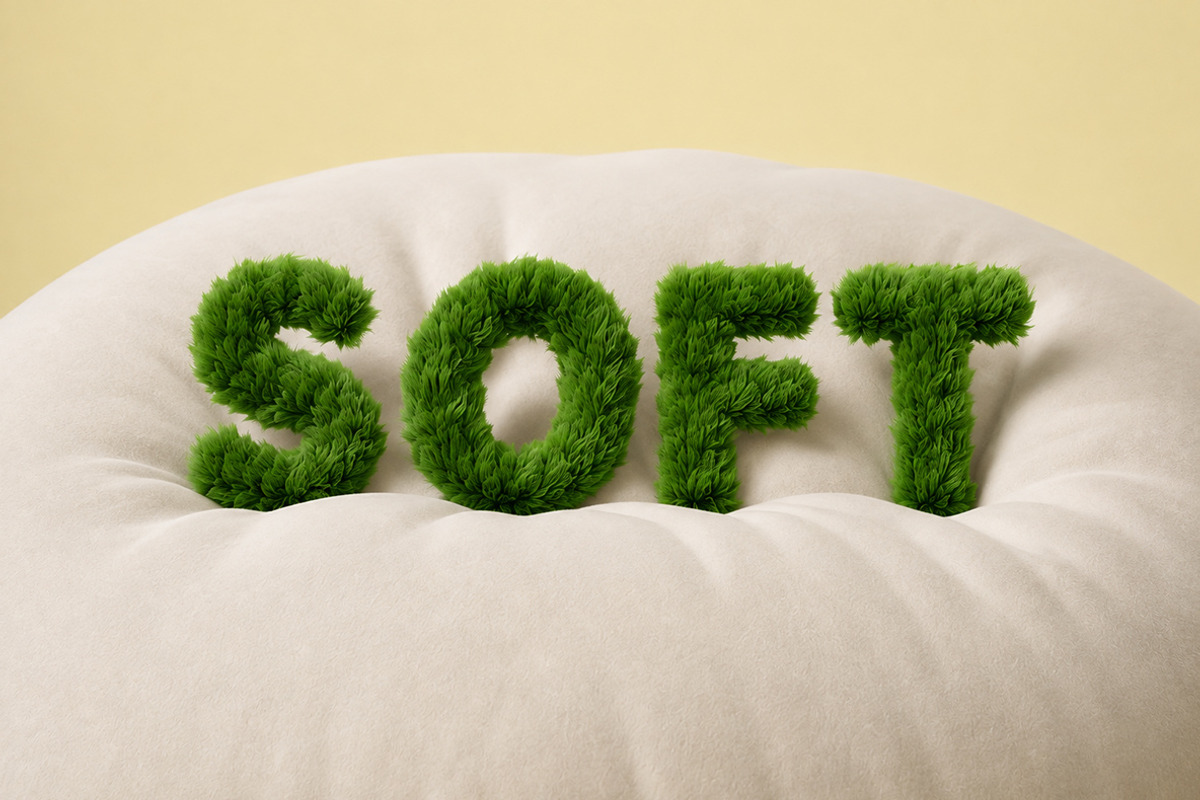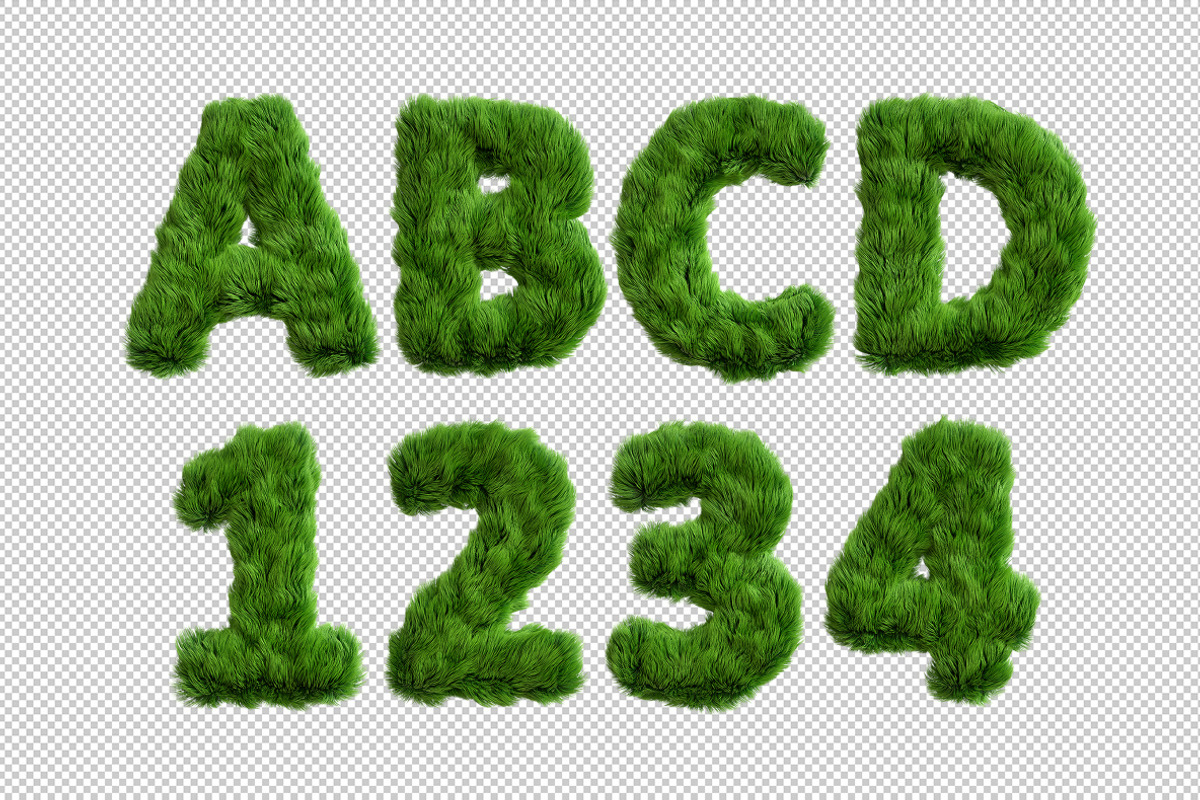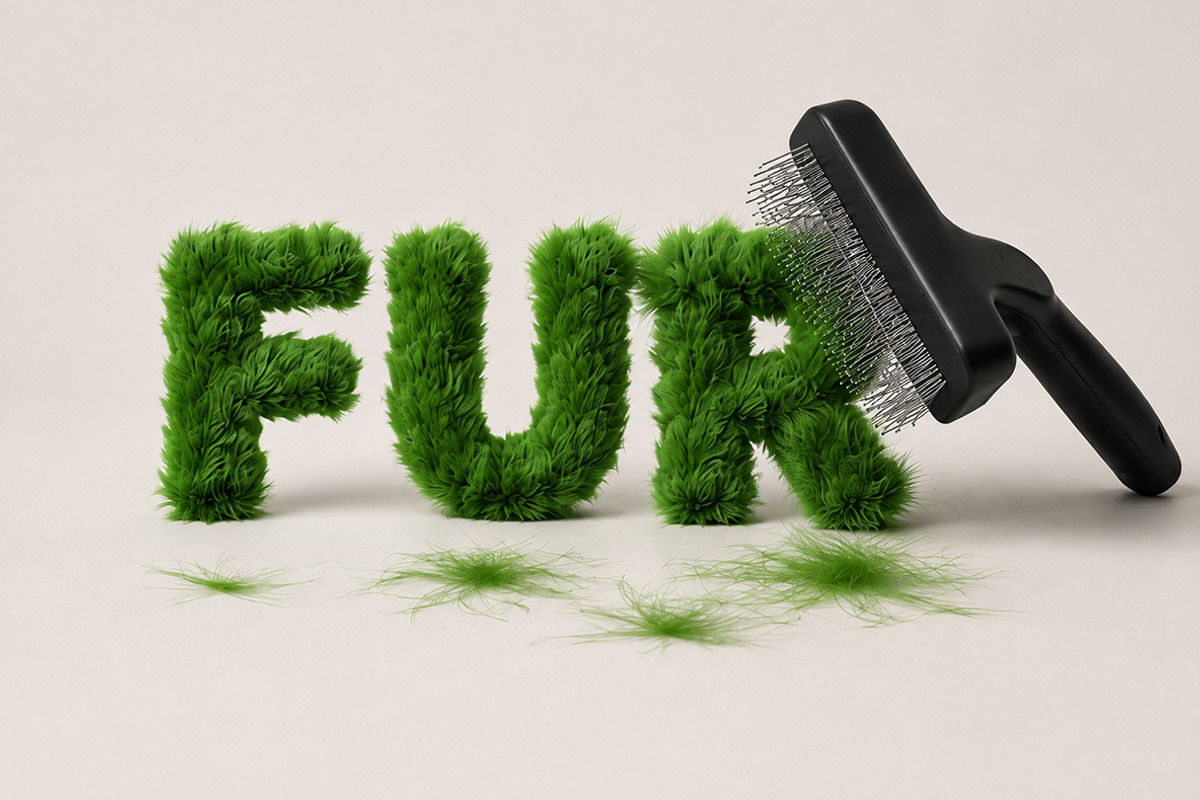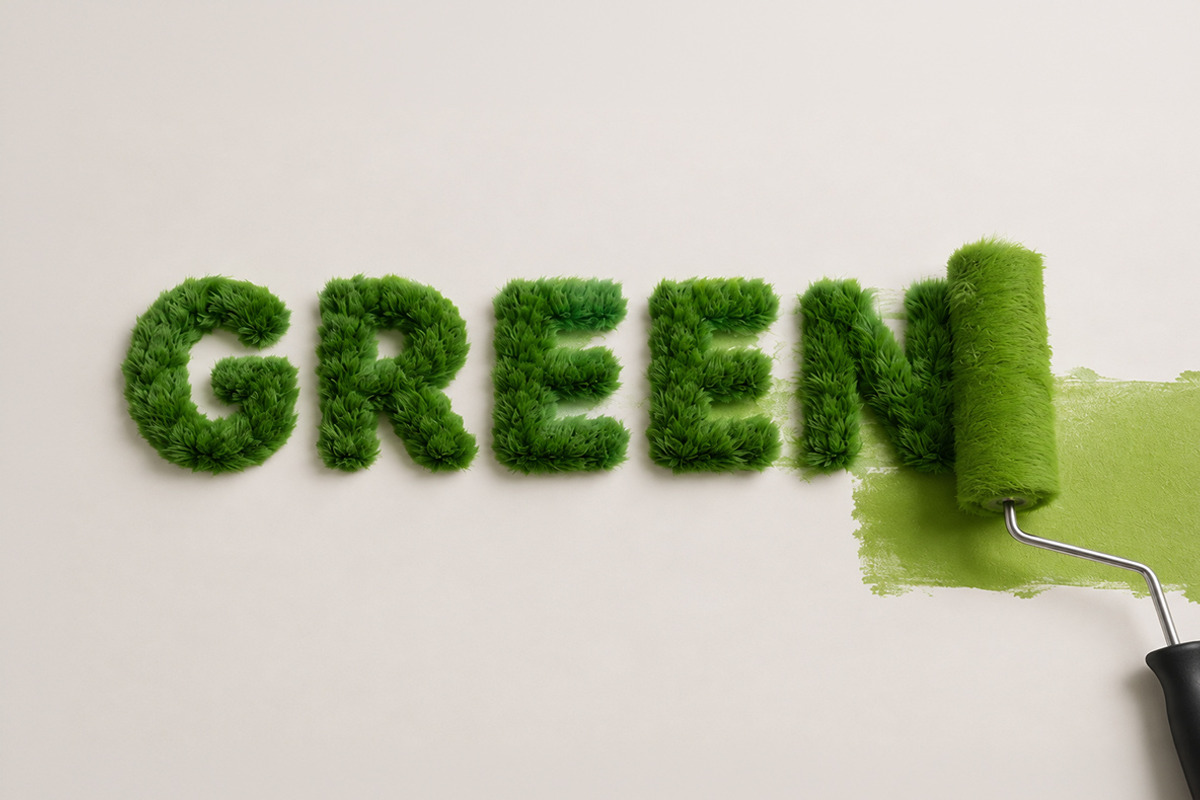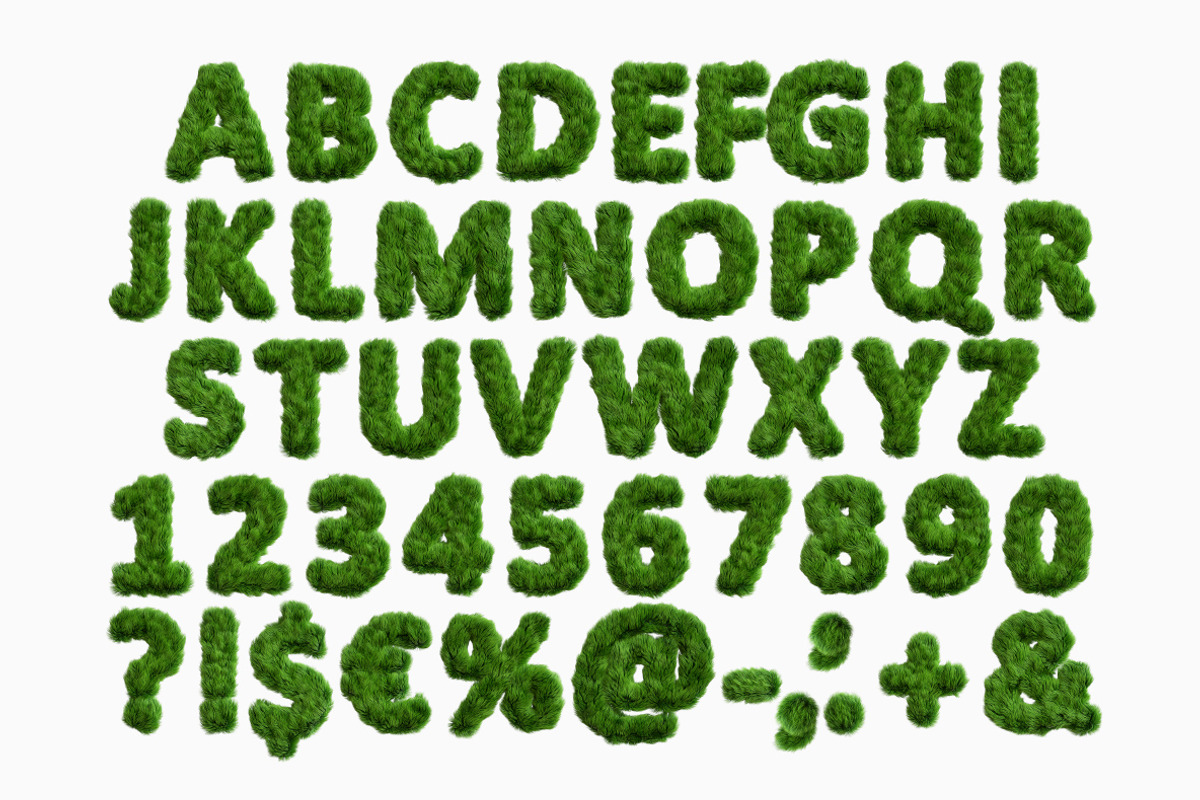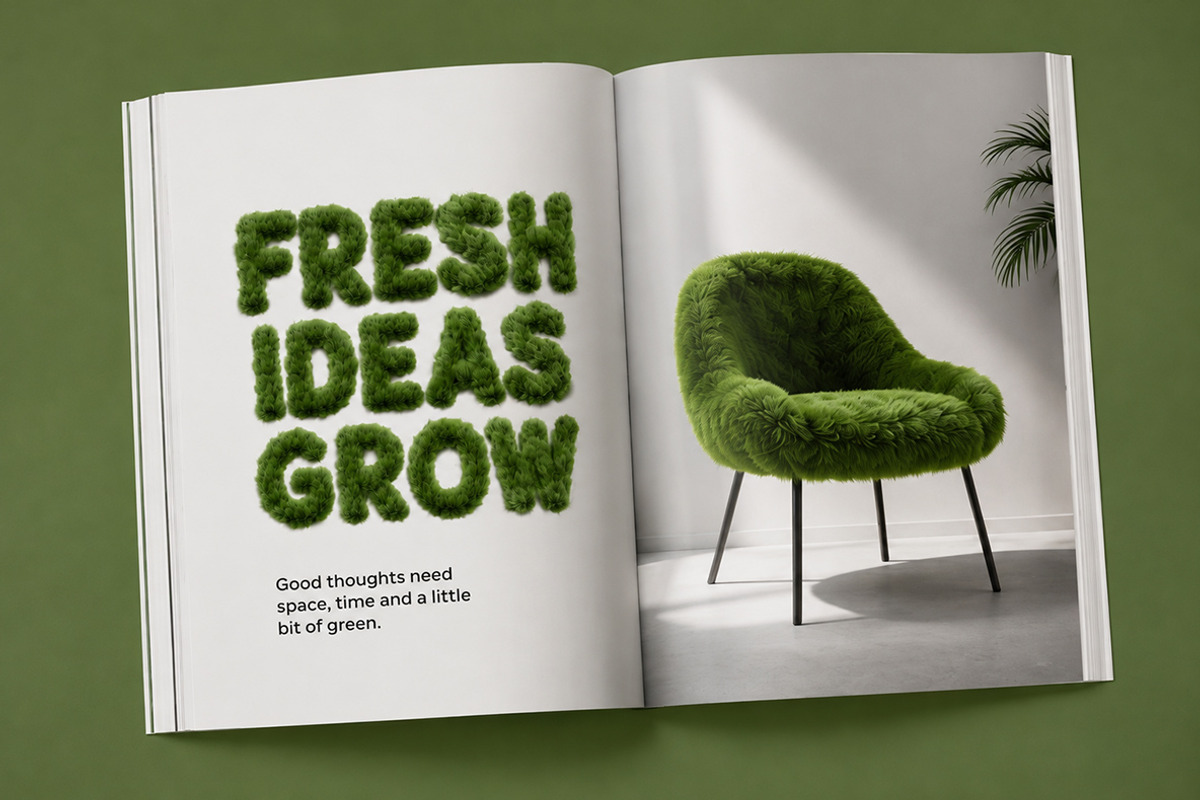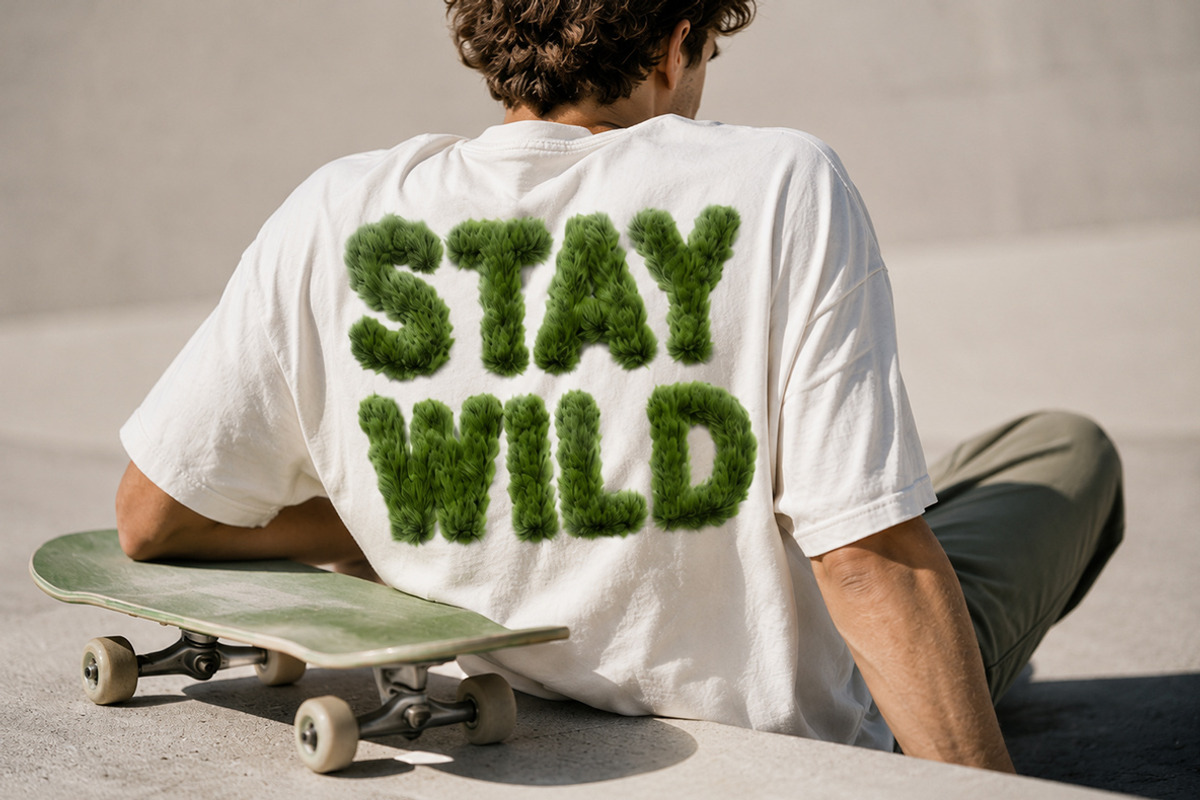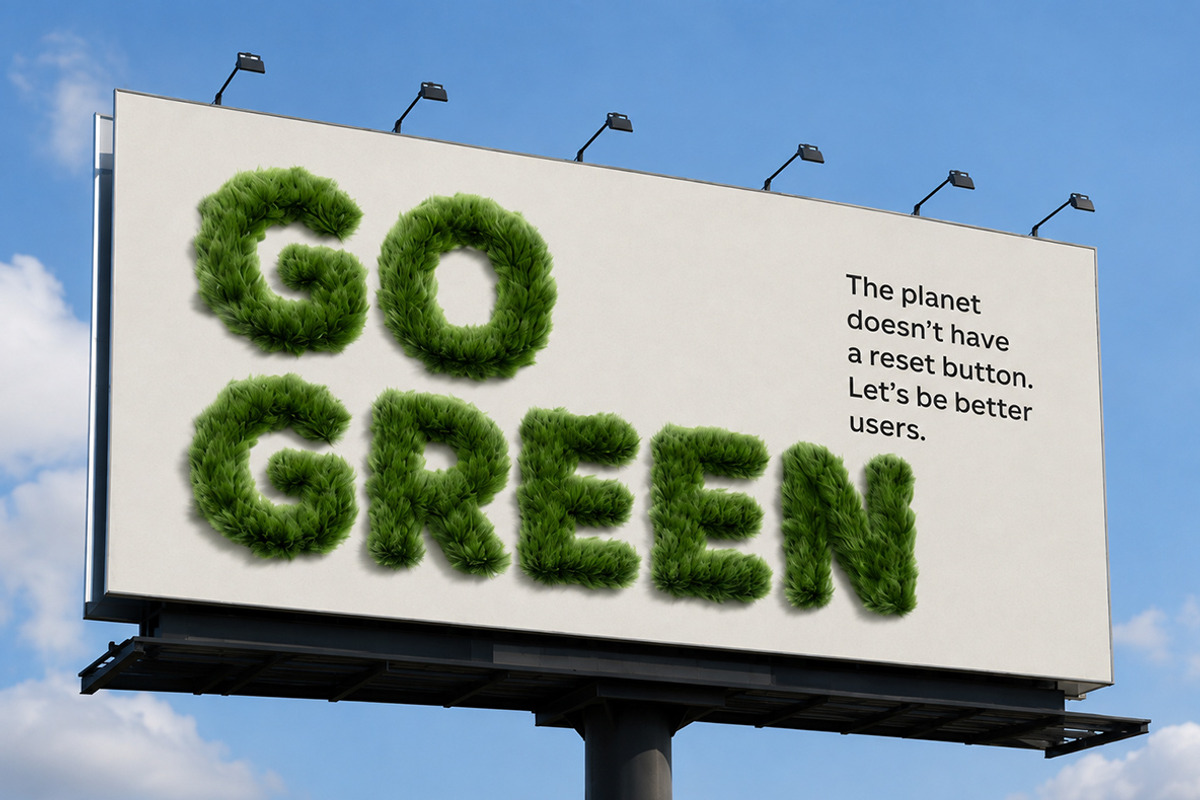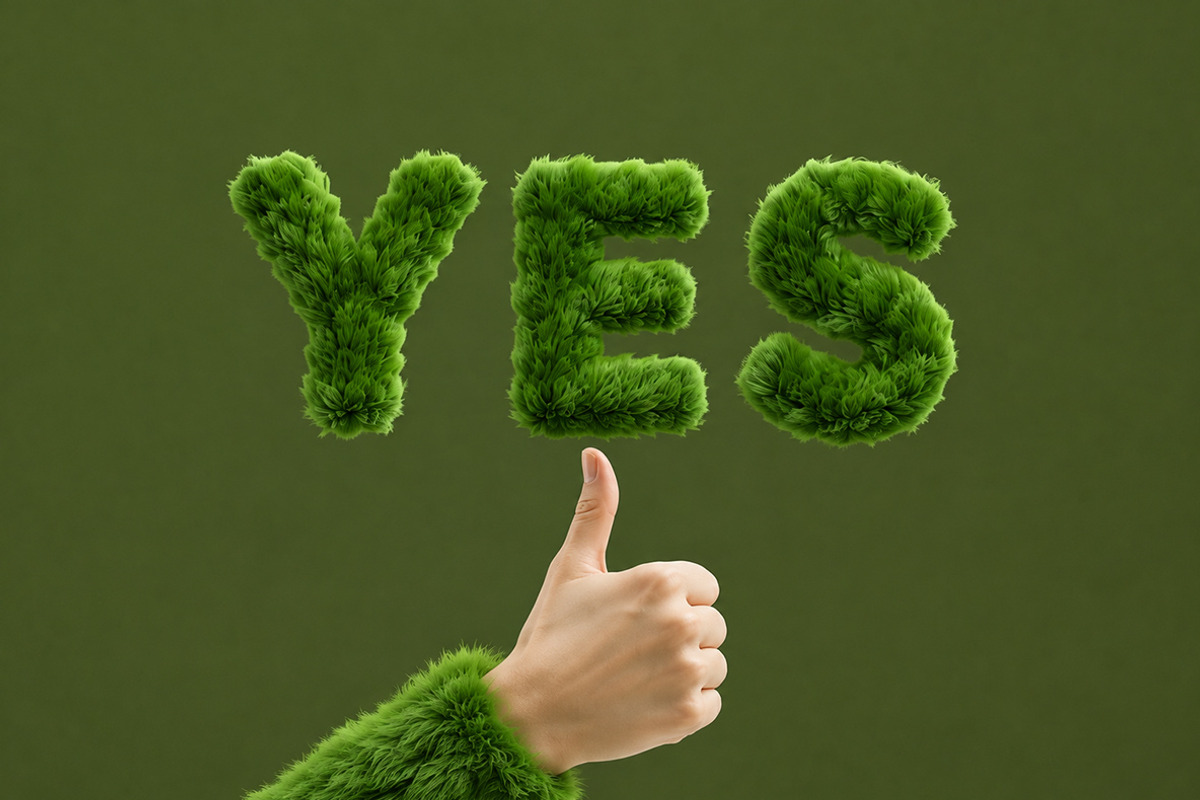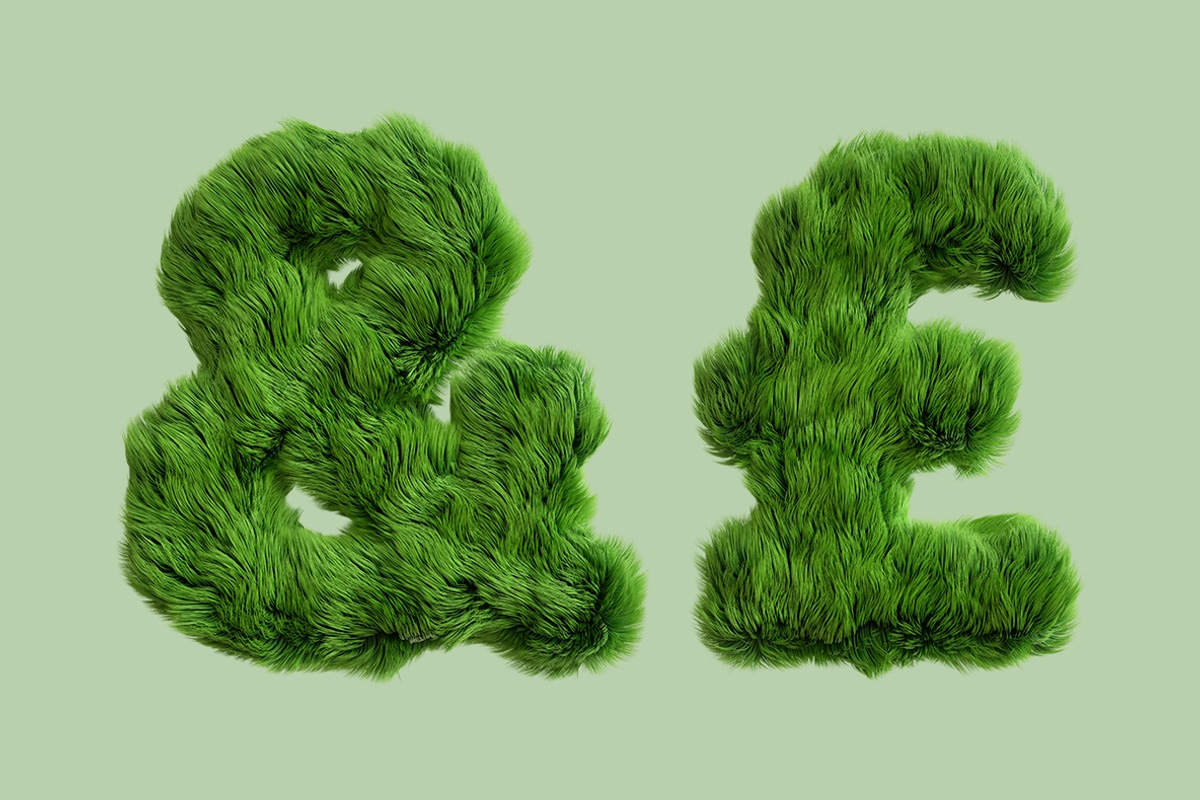
Green Fur Font
Green Fur Font brings the playful charm of soft green fur into bold, eye-catching typography. Every letter is covered with realistic fluffy texture, making your designs feel fresh, organic, and full of personality. Perfect for branding, eco-themed projects, packaging, posters, social media, apparel, advertising, magazine covers, and creative artwork, this typeface instantly grabs attention with its unique natural look. The package includes a fully functional OpenType (OTF) font for effortless typing, plus every character as an individual high-resolution PNG file with a transparent background for maximum creative flexibility. Green Fur Font is ideal for designers who want typography that feels wild, modern, memorable, and alive.
Letters : A B C D E F G H I J K L M N O P Q R S T U V W X Y Z
Numbers : 0 1 2 3 4 5 6 7 8 9
Others : ! ? - . ' $ € % & #